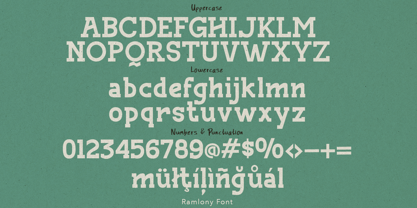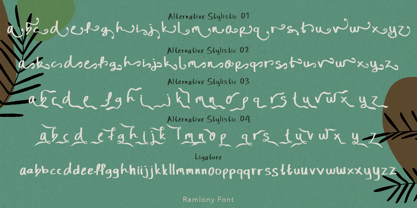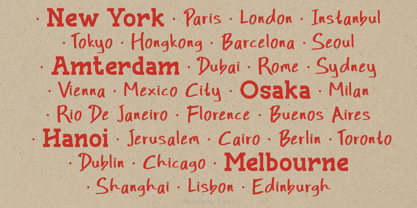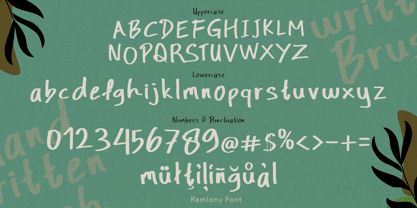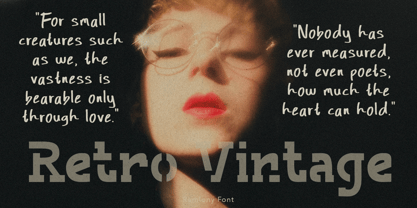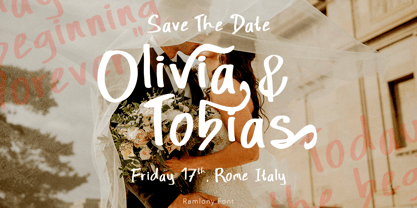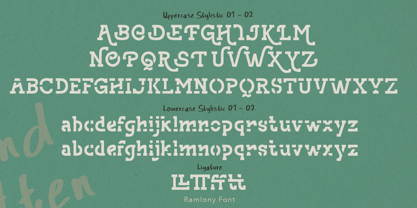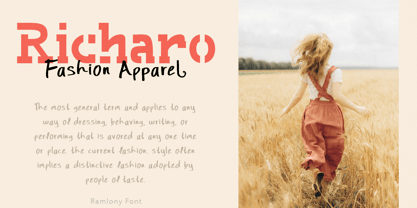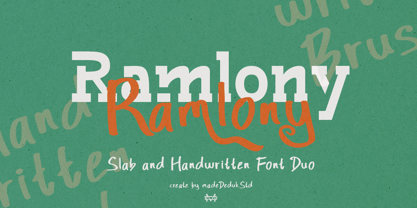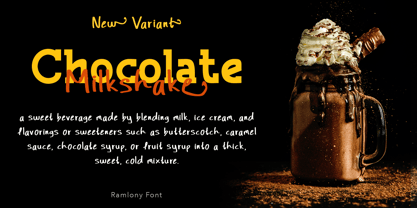
Ramlony
by madeDeduk
The Ramlony Font Family was designed by madededuk and published by madeDeduk. Ramlony contains 2 styles and family package options. More about this family
Ramlony font duo features a delicate handwritten script, resembling the look of authentic, natural brush. Paired with a slab font, it creates a balanced, refined look that complements the script beautifully. This font is perfect for branding, web titles, logos, quotes, movie titles, and more.